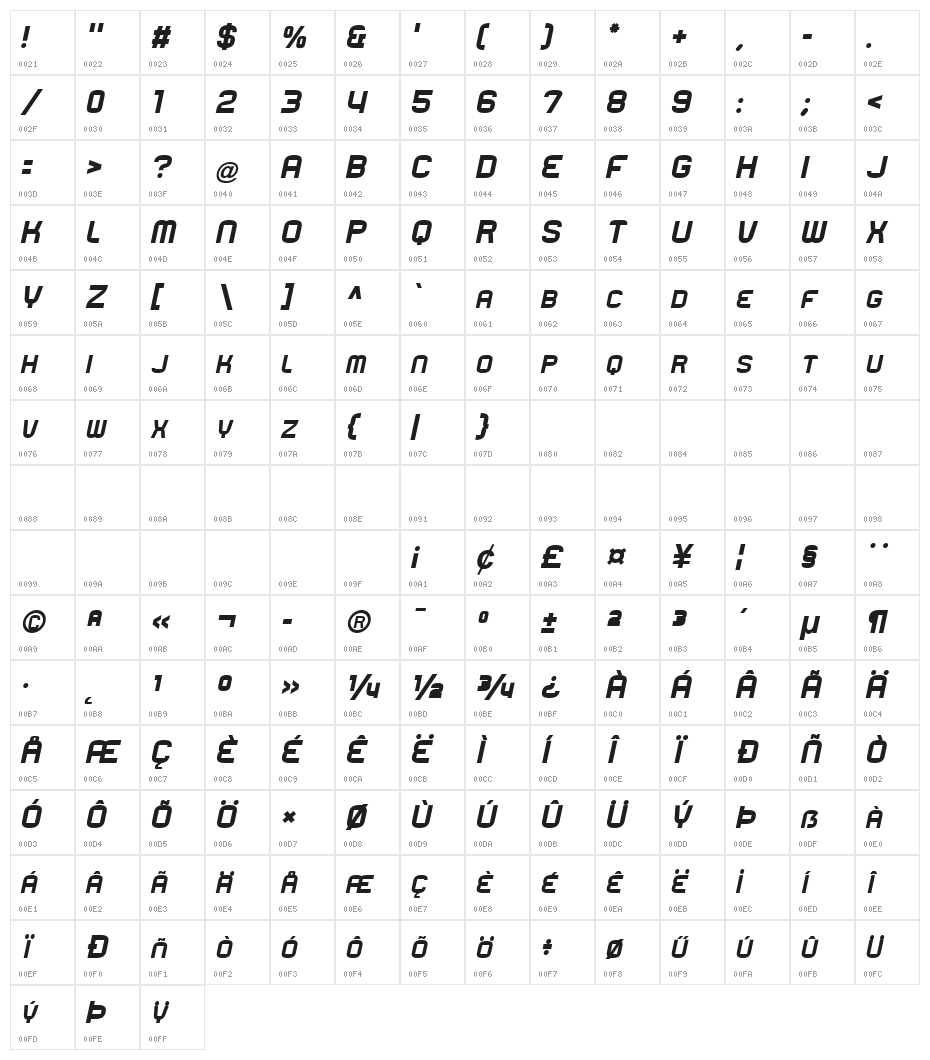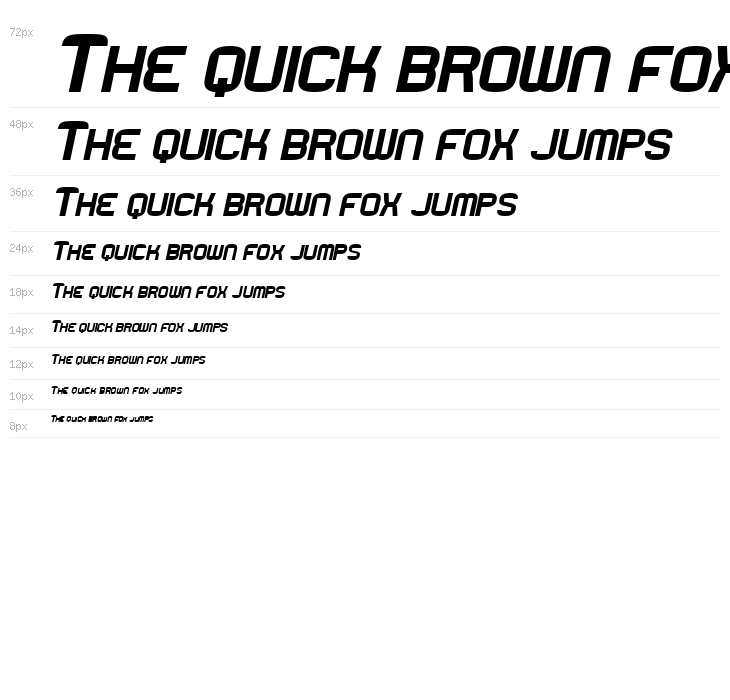
Rueck-Italic Font
Rueck-Italic Description
This font features a sleek, italicized design with a modern and dynamic appearance. The characters are slightly slanted, giving a sense of motion and energy. The strokes are bold and consistent, providing a strong visual impact. The uppercase and lowercase letters maintain a uniform style, with rounded edges and a geometric structure. The numbers and special characters are designed to complement the letters, ensuring readability and aesthetic harmony. This font is suitable for projects that require a contemporary and energetic feel.
| Use Case | Logos, Headlines, Branding |
| Proposed Projects | Ideal for sports branding, dynamic logos, modern advertising, and tech-related projects. |